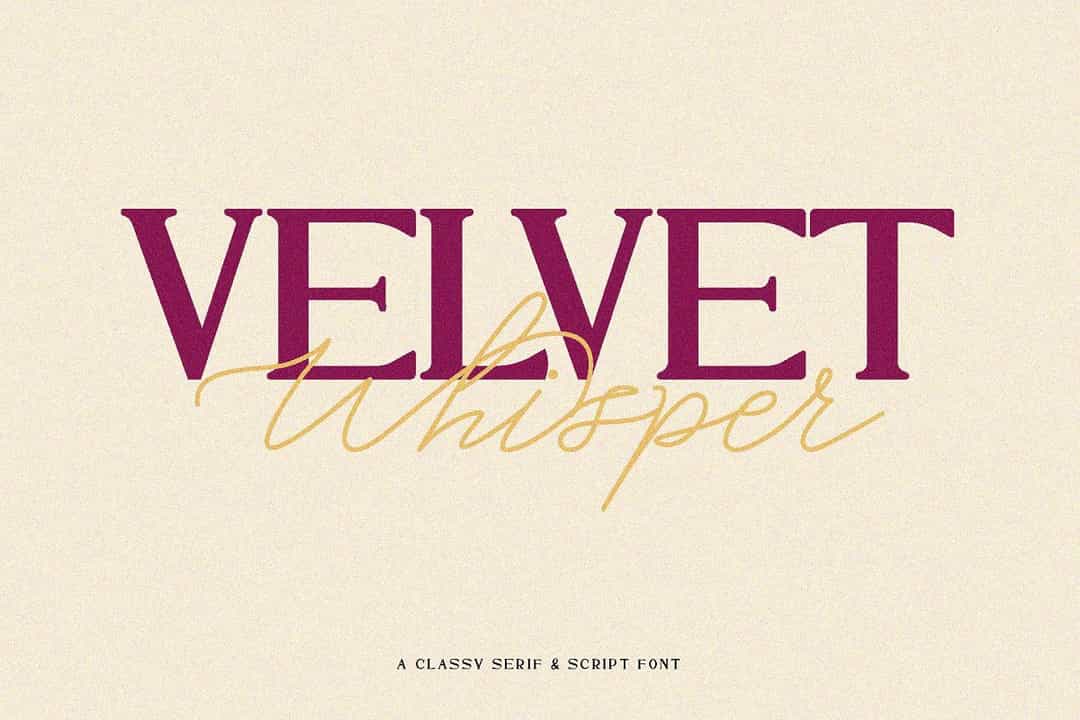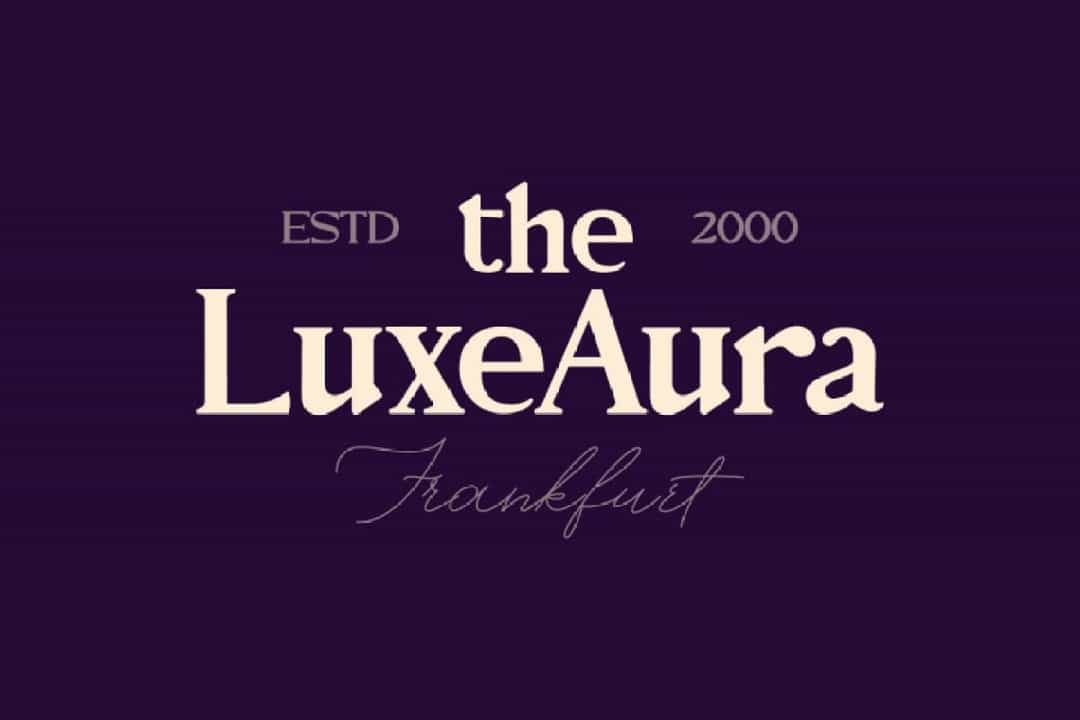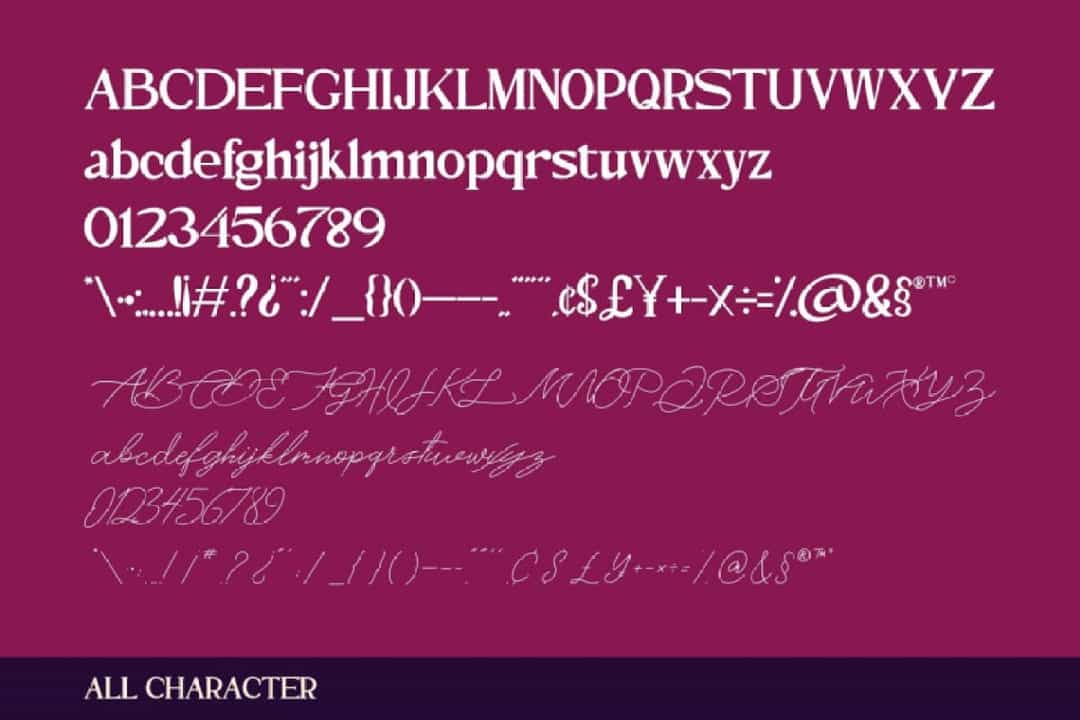
Velvet Whisper Font Duo is a luxurious serif typeface featuring playful script elements. Velvet Whisper Font Duo brings sophistication and luxuriousness to any creative project, combining modern elegance with whimsical charm for maximum impact.